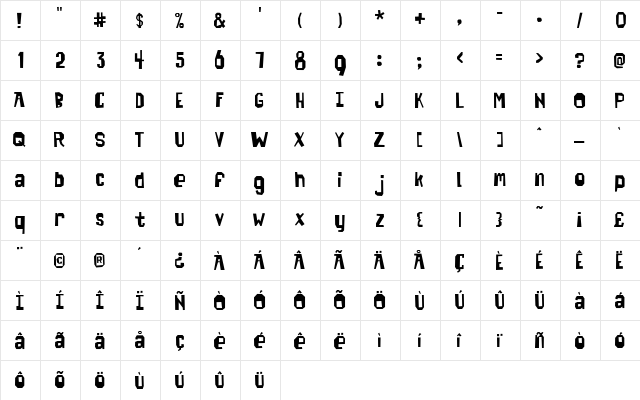
SpaceCowboy Medium
Design Context for SpaceCowboy Typeface
SpaceCowboy taps into classic Western woodtype traditions — bold, characterful, and impossible to ignore.
A natural fit for craft spirits, ranch branding, rodeo events, and Americana-inspired design work.
Font Pairing: Combine SpaceCowboy with a simple slab or neutral sans — period-accurate companions reinforce the vintage feel without competing for attention.
Pro Tip: Use SpaceCowboy for short, impactful bursts of text — it shines in poster headlines and product names rather than extended copy.